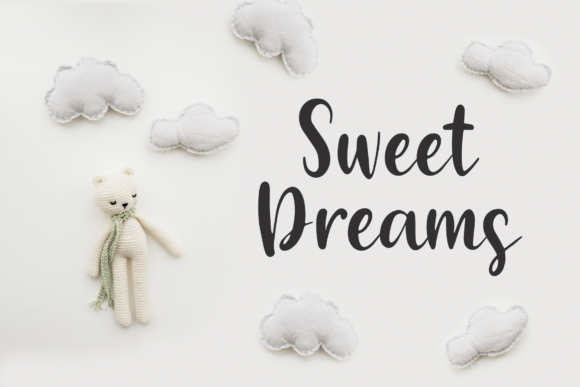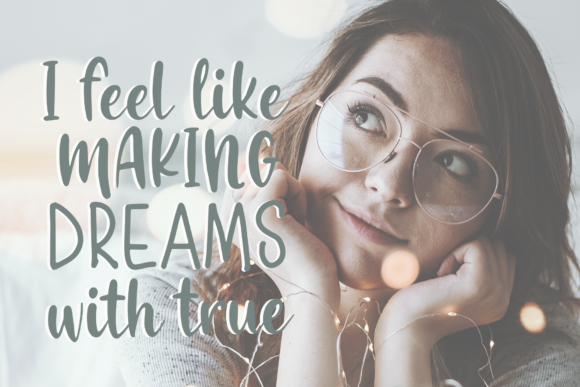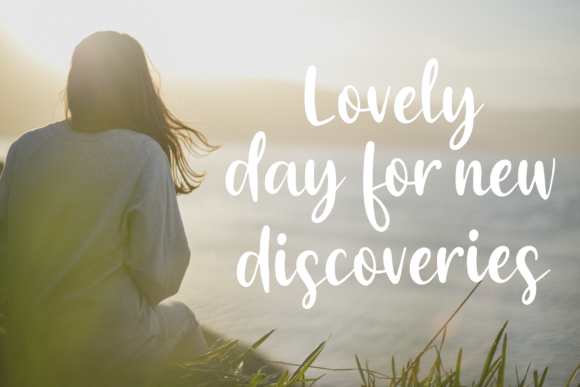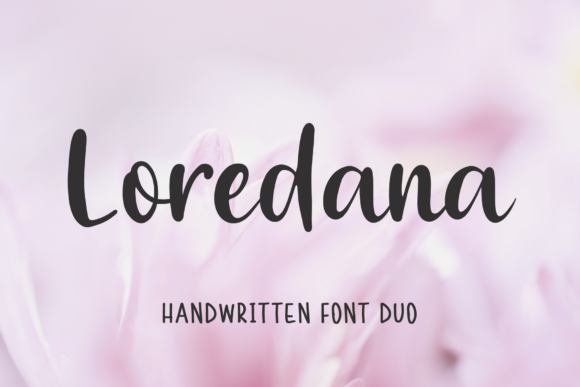
Introduction to Loredana Font
Loredana is a lovely handwritten font.
It will take your design projects to the next level .
Why Choose Loredana Font?
Loredana Font offers exceptional quality and versatility, making it a valuable addition to your design toolkit. Whether you’re creating for personal projects or commercial use, Loredana Font delivers professional results.